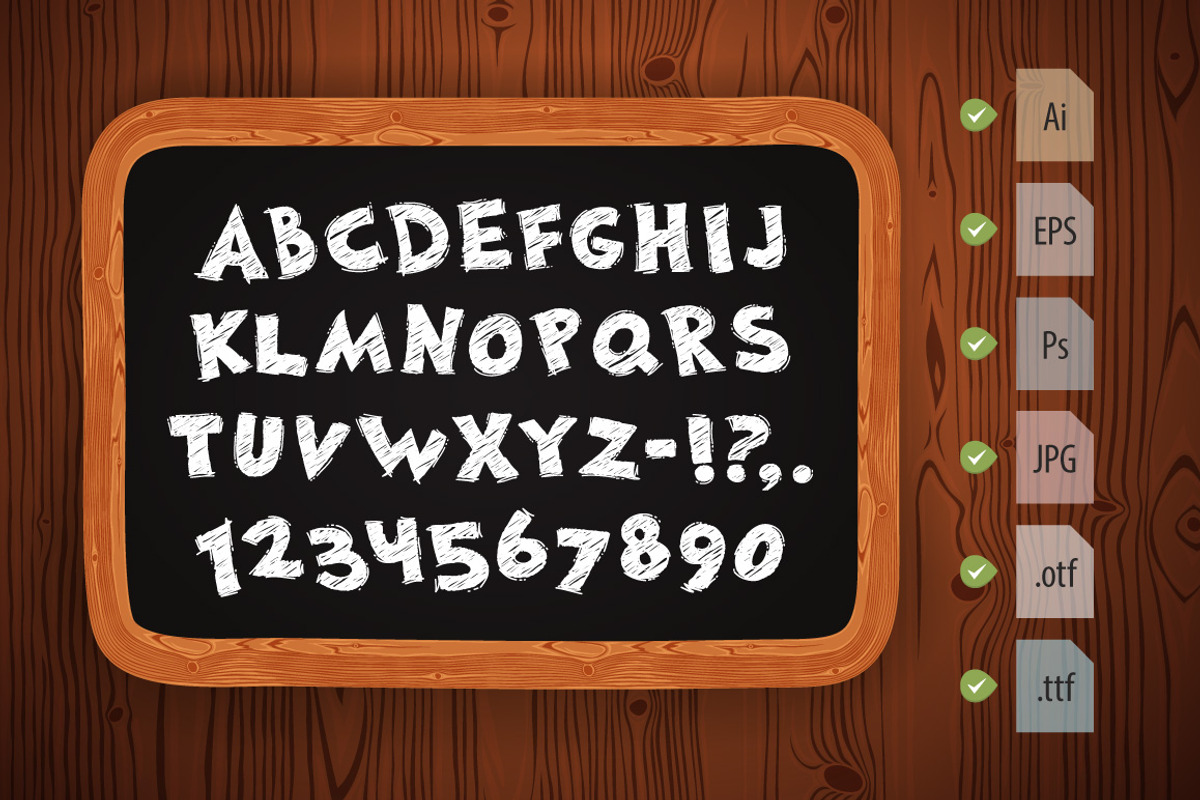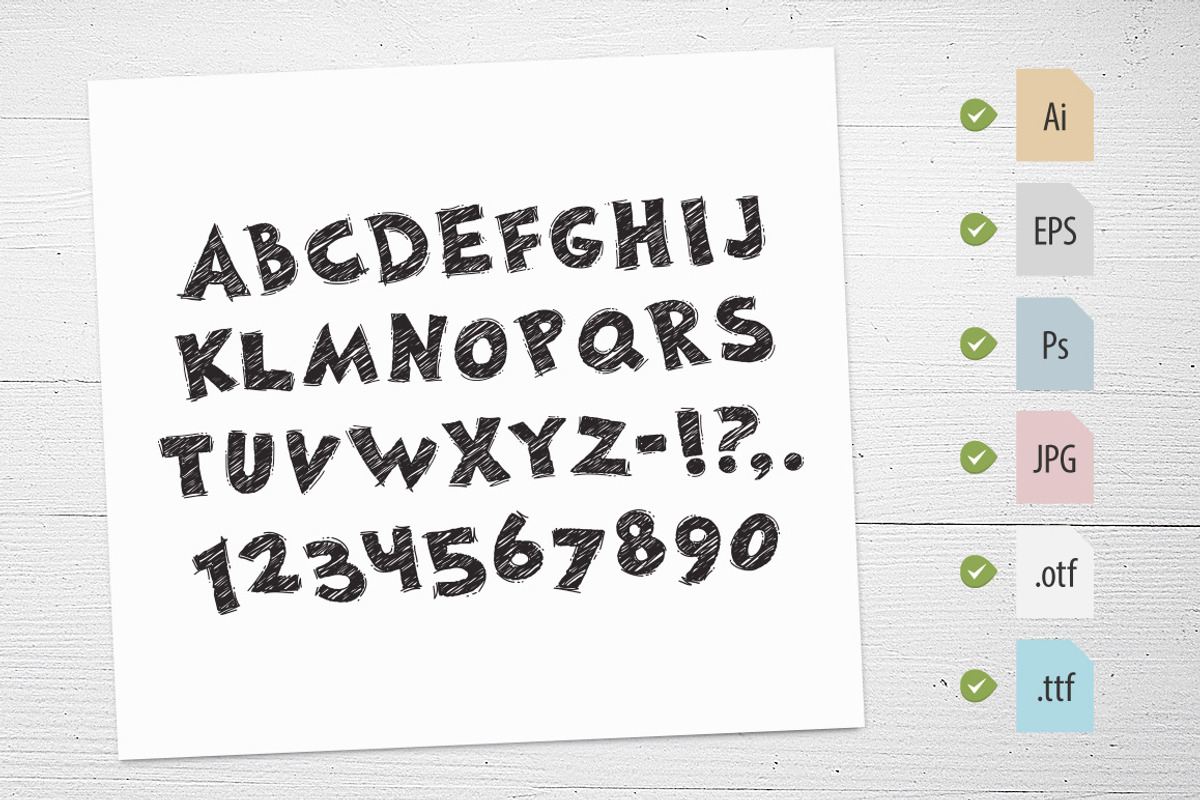
Hand Drawn Chalked Font
Hand Drawn Chalked Font by Voysla's Shop is a font selected for branding, posters, packaging, typography.
- Please note that this font does not include the lowercase symbols.
Hand Drawn Chalked Font by Voysla's Shop fits naturally into Branding, posters, packaging, typography.